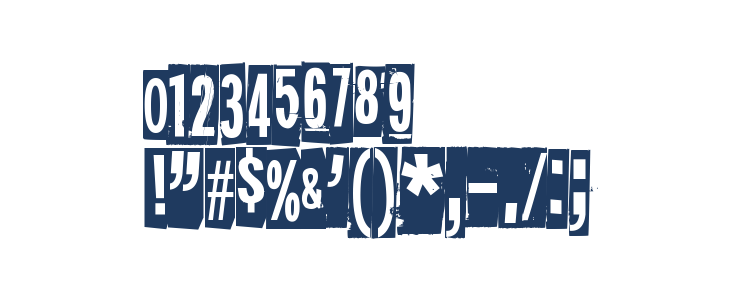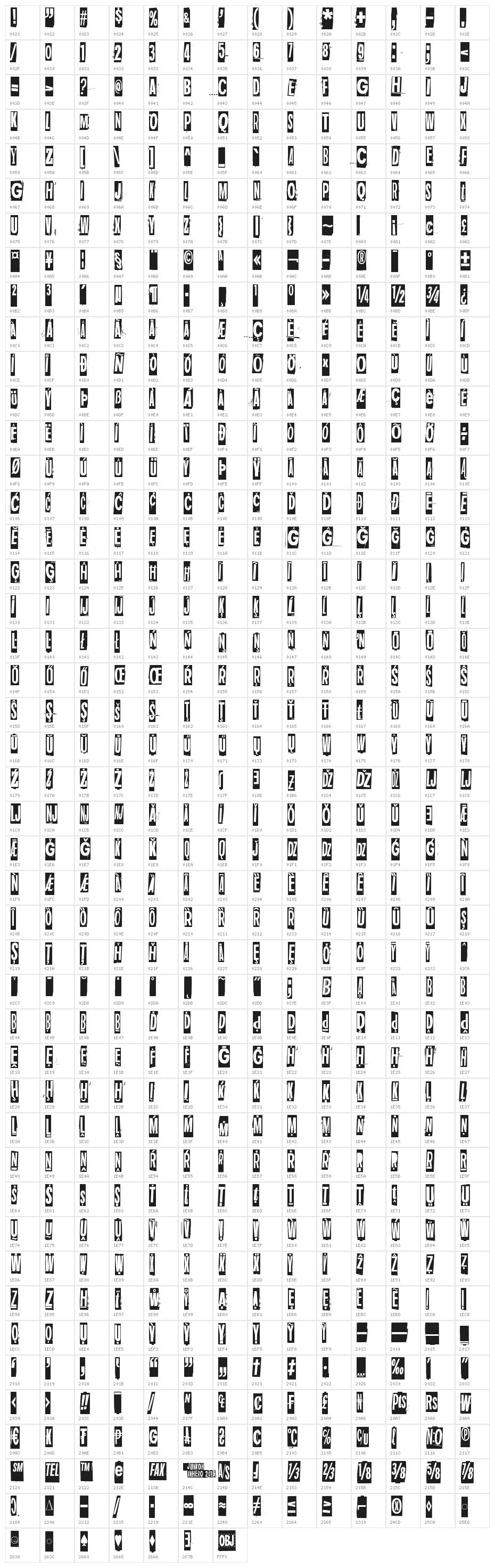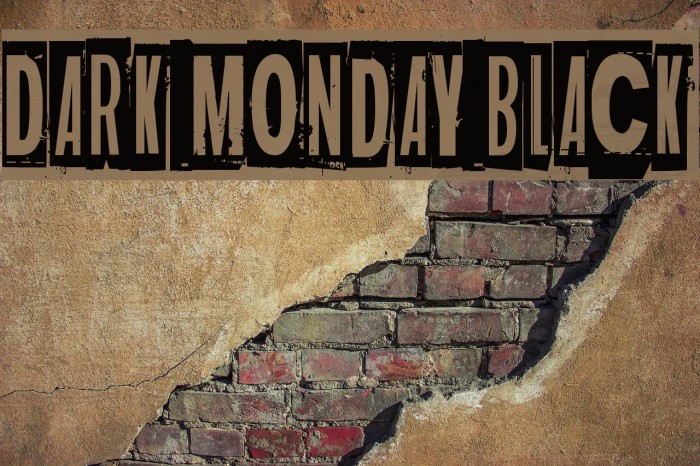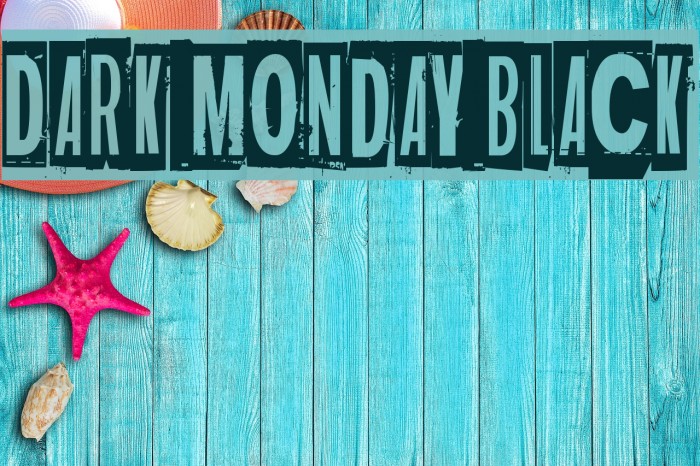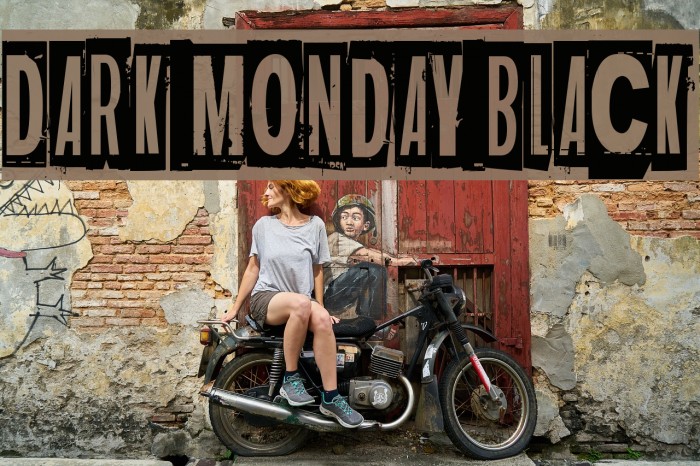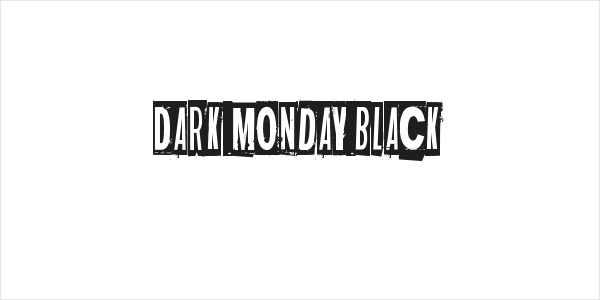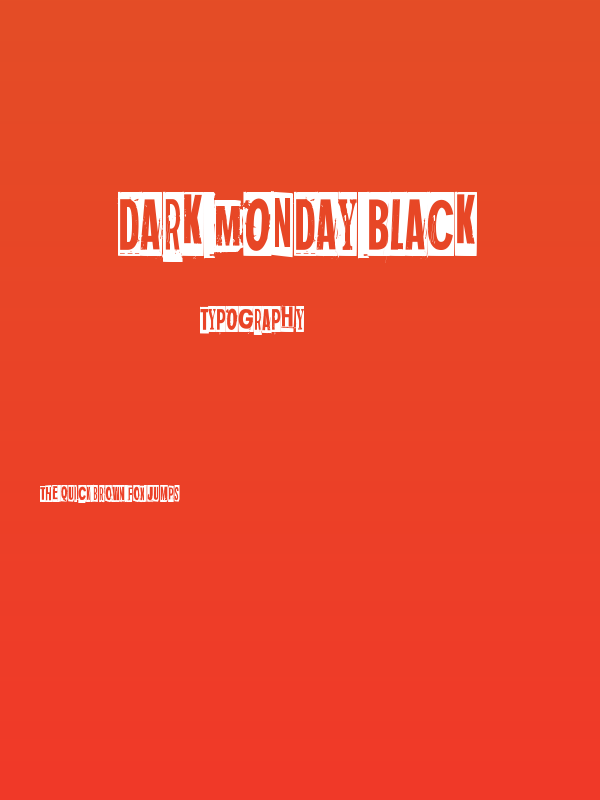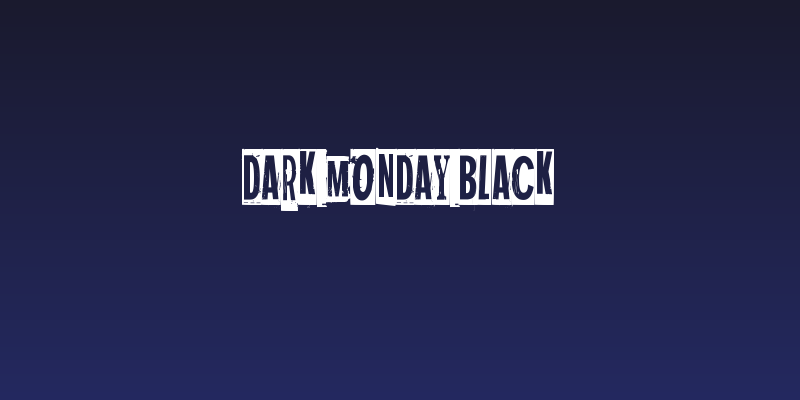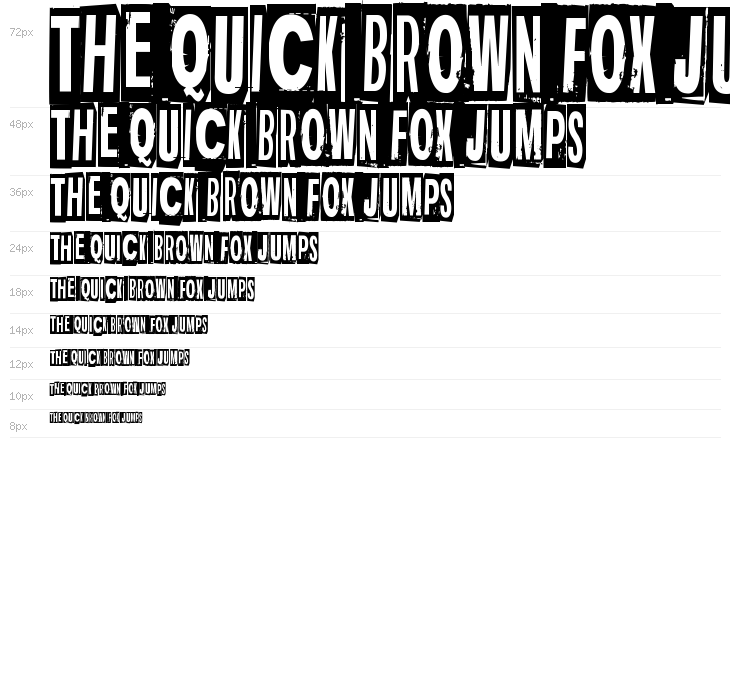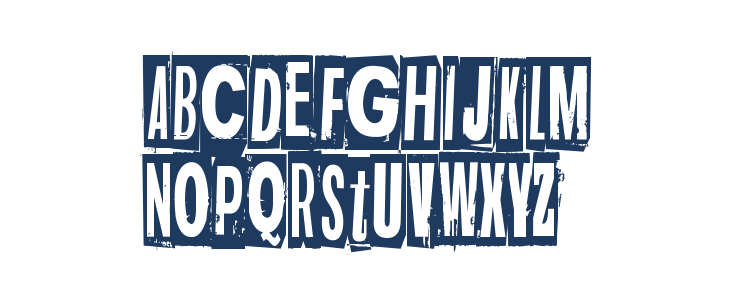
Dark monday black Font
Dark monday black Description
This font features a bold, distressed style with a high-impact appearance. Each character is encased in a rough, textured block that gives it a grunge and urban feel. The letters are uppercase with a consistent height, while the lowercase letters mimic the uppercase in size and style, maintaining the bold and rugged aesthetic. Numbers and special characters follow the same design, ensuring a cohesive look across all elements. The font's distressed texture adds a dynamic and edgy vibe, making it ideal for projects that require a strong visual statement.
Overall StyleGrunge, Urban, Edgy
Proposed ProjectsIdeal for album covers, posters, streetwear branding, and event flyers.